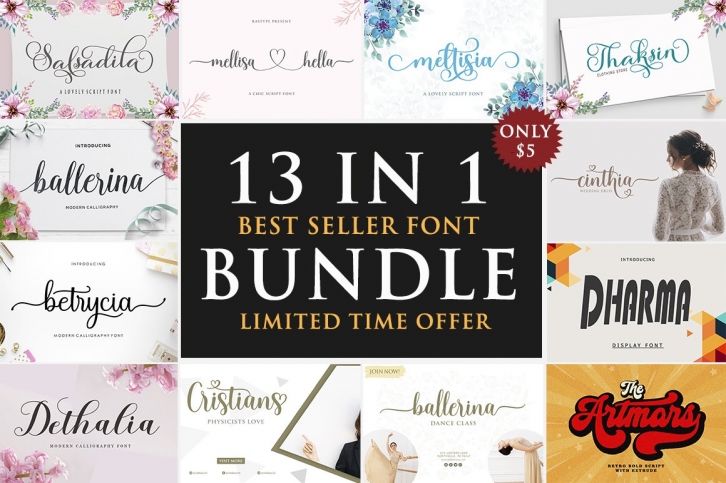
13 Best Seller Font BUNDLE Download
13 Best Seller BUNDLE is a trendy and unique font with an authentic style. It was designed by Rastype and it's a great choice for creative people who need such a font. It was released on October 20, 2020 and the file size is 5.52 MB. 13 Best Seller BUNDLE will add an organic vibe to any design idea!